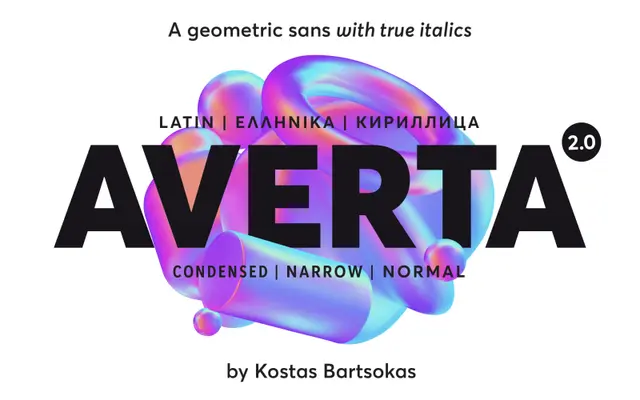
A pan-European geometric sans available in nine weights across three widths, with full variable font support and extensive Cyrillic, Greek and Bulgarian coverage.
Spanning Condensed, Narrow and standard widths, each in nine weights with matching italics, Averta PE totals 54 styles plus variable font versions. OpenType features include oldstyle numerals, case-sensitive forms and eleven stylistic sets addressing alternate letterforms for Latin, Greek, Cyrillic, Bulgarian and Siberian scripts. The result is a workhorse geometric sans suited to UI, editorial and identity work across multilingual environments.
Averta is a geometric sans-serif with a clean, circular construction. The PE (Pan-European) designation and breadth of stylistic sets for Latin, Cyrillic, Greek and Bulgarian scripts confirm its broad humanist-geometric heritage.